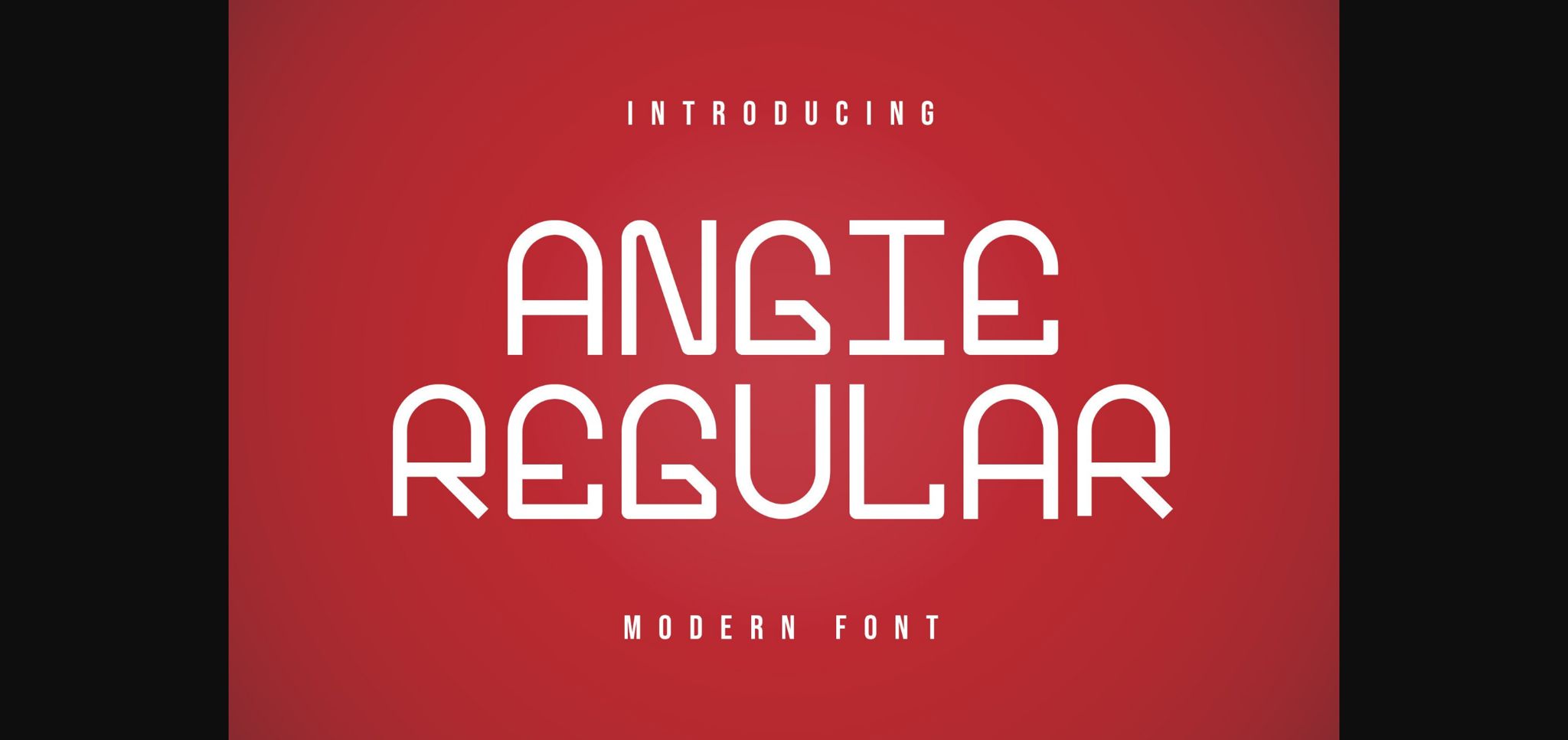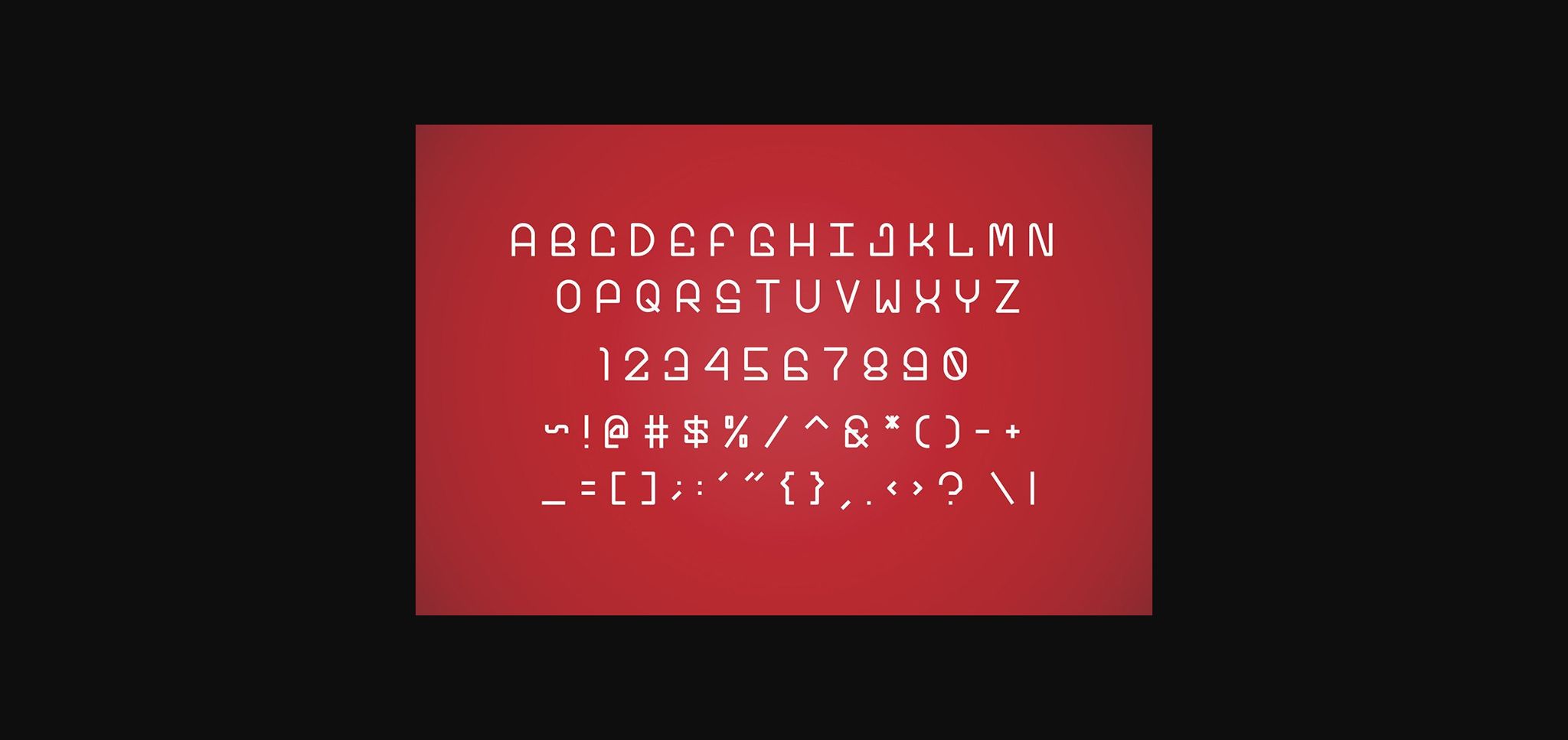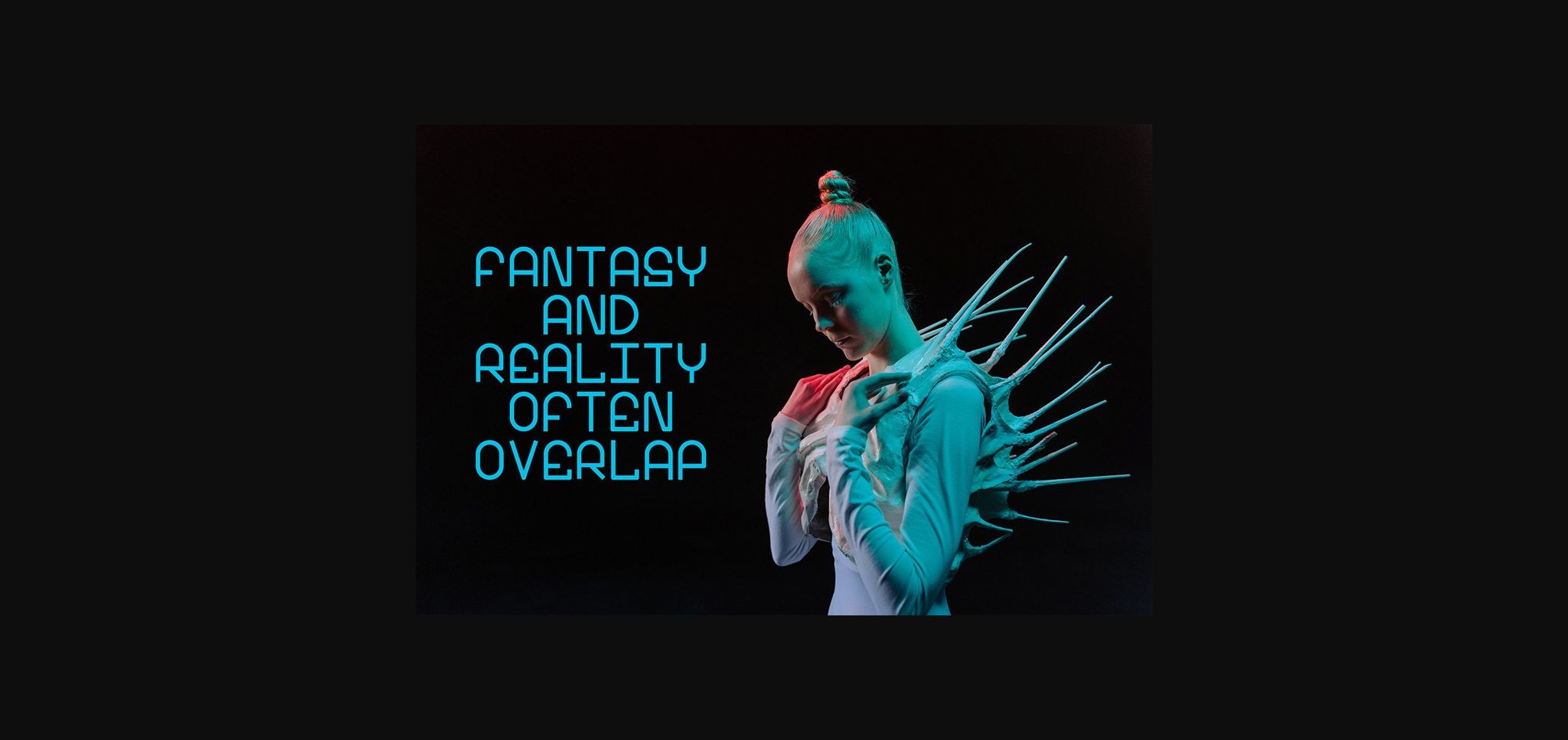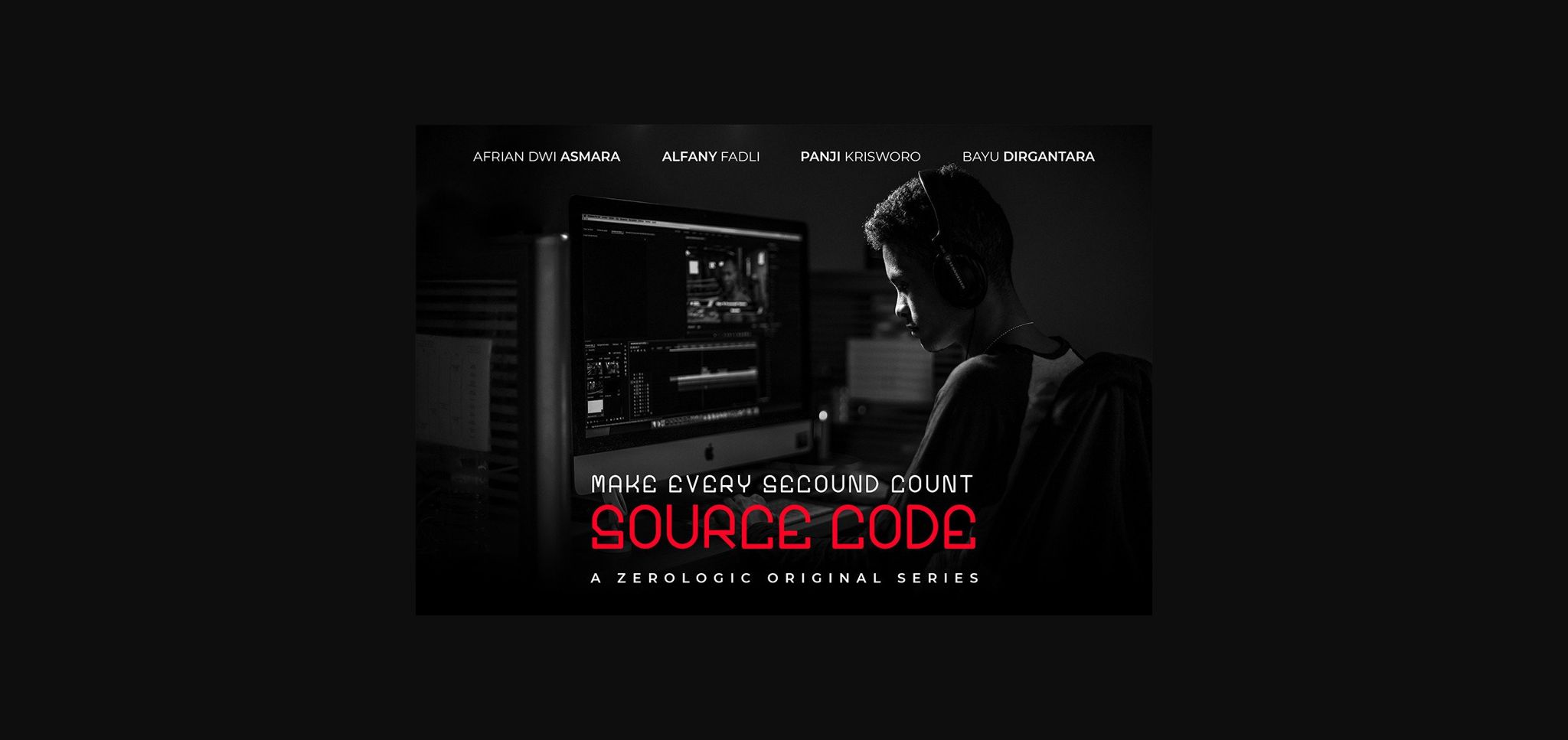
Angie Font
About Angie Font
Angie is a unique sans serif font. This minimalist and clean vibe can easily apply to your favorite designs such as book covers, magazines, social media posts, invitations, and so much more!